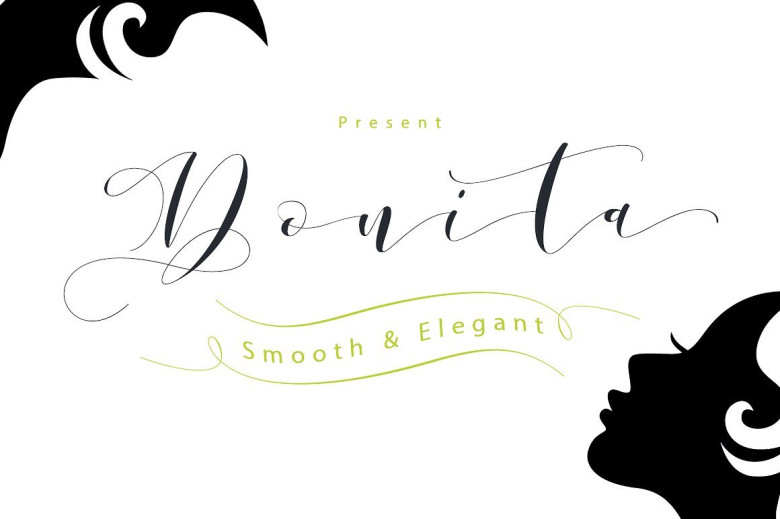
Donita Script Font
This font looks elegant, classy, readable, stylish, catchy and easy to use. This is a very charismatic & confident font choice for your various design projects. Introducing Donita Font. Donita is a new varieties of handlettered script font, allowing you to completely make-each word look stylish! With smooth style and petite, elegant with a long thin connections that make it look luxurious and original. Donita comes with a total of 385 glyphs complete with swooshes